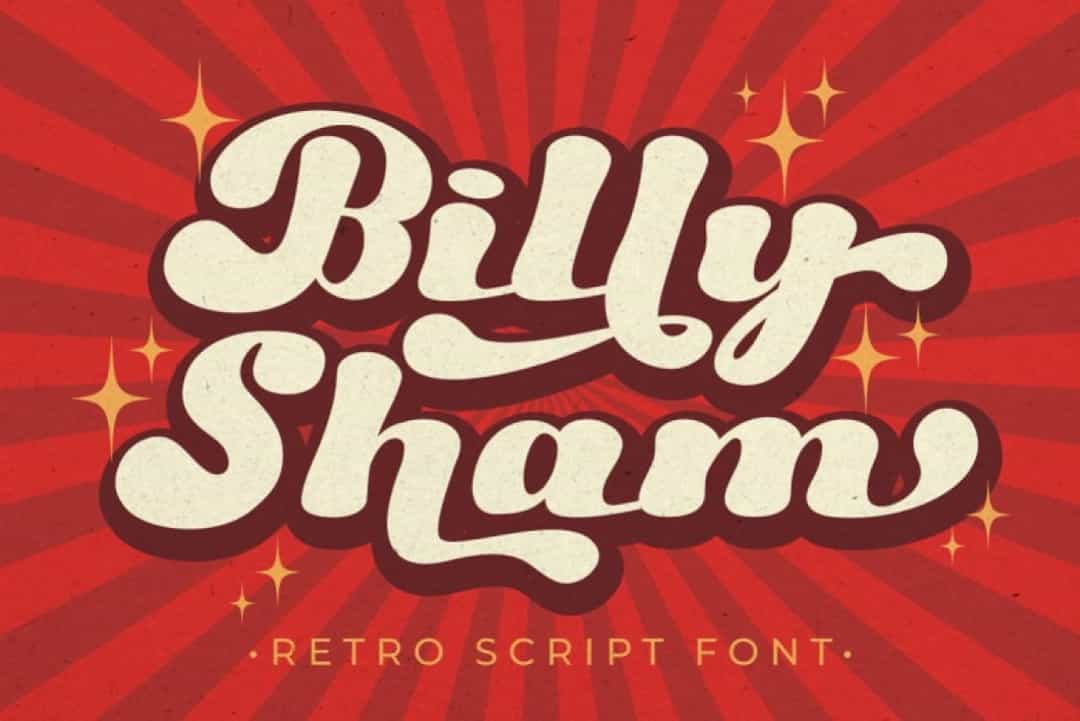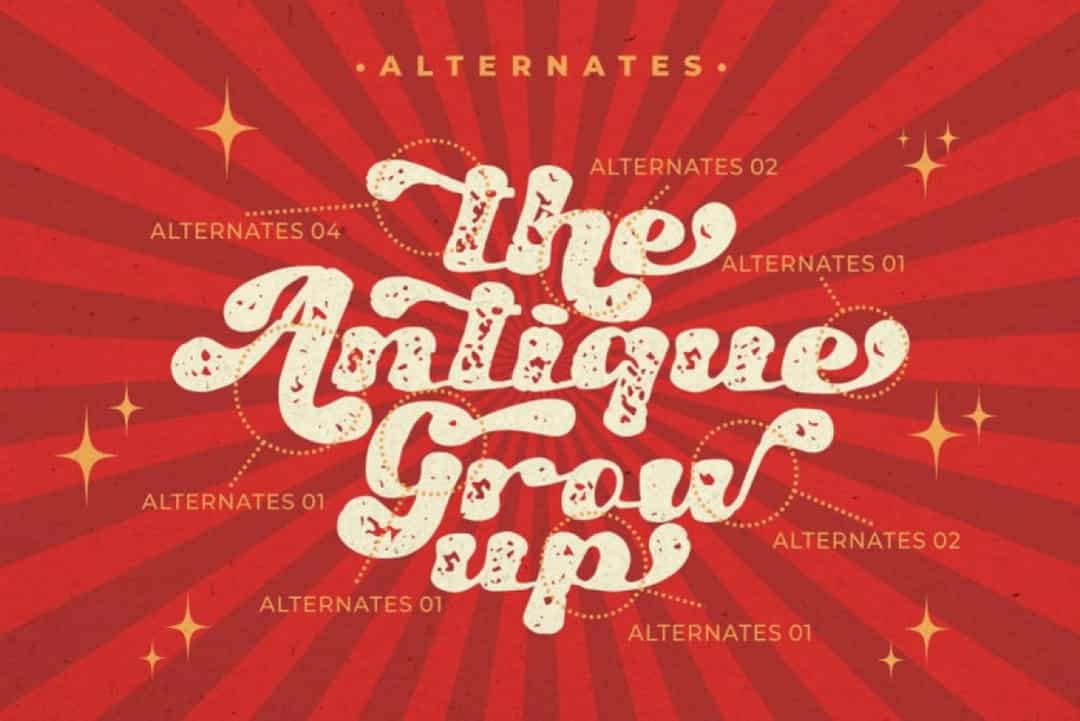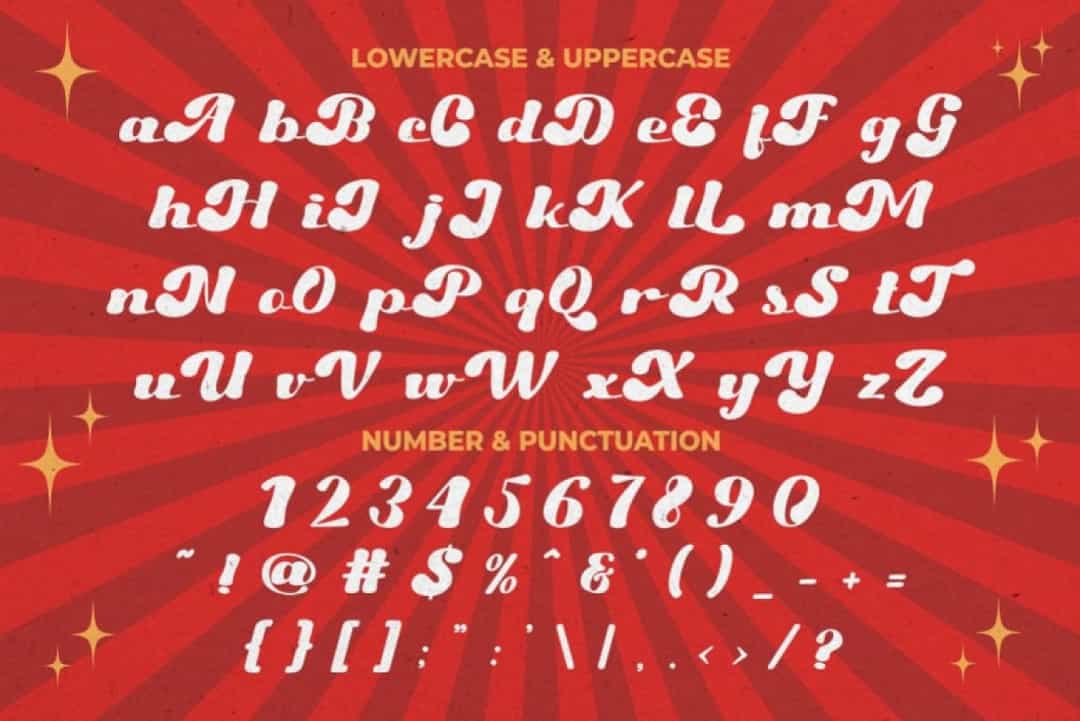
Billy Sham is our brand new retro font! Inspired by vintage typography from the 70’s and 1980’s, as well as bold lettering styles from those periods, it offers 534 glyphs and 359 alternative letters for you to create lettering combinations using many options available. Open type features (many alternates and an end swash) will assist in crafting amazing letters!